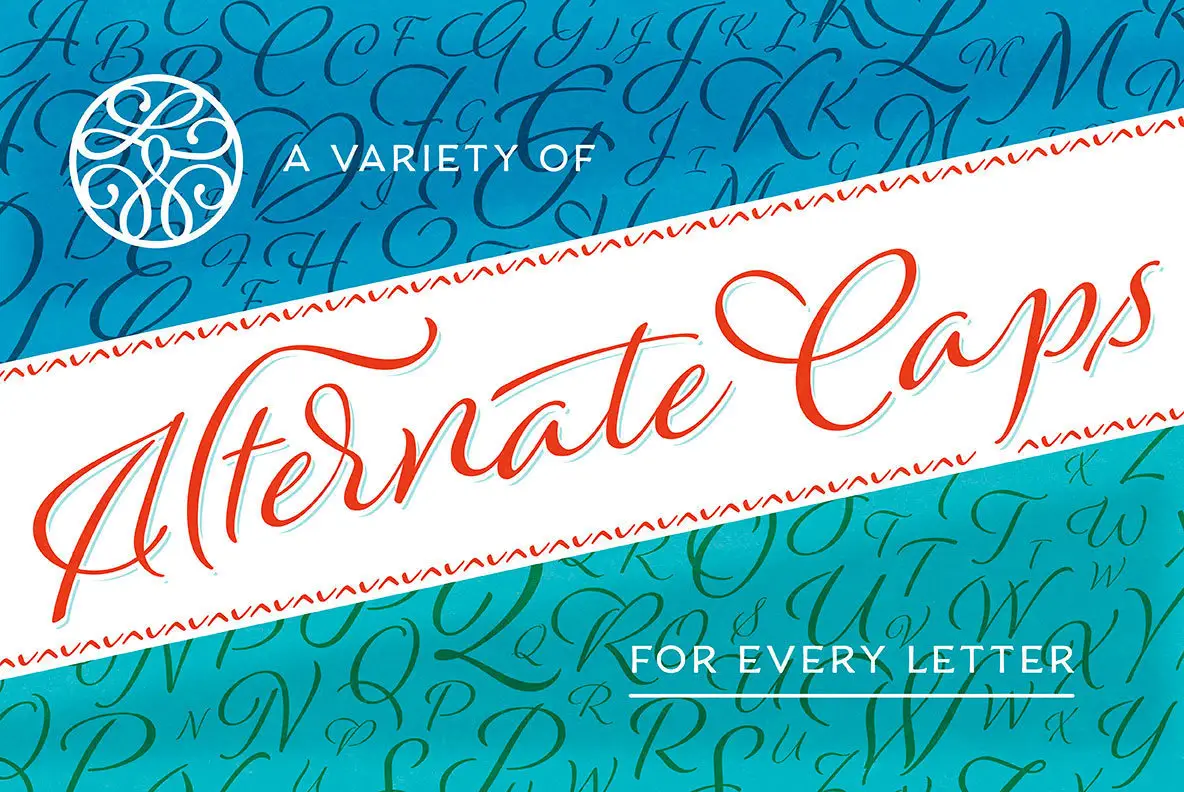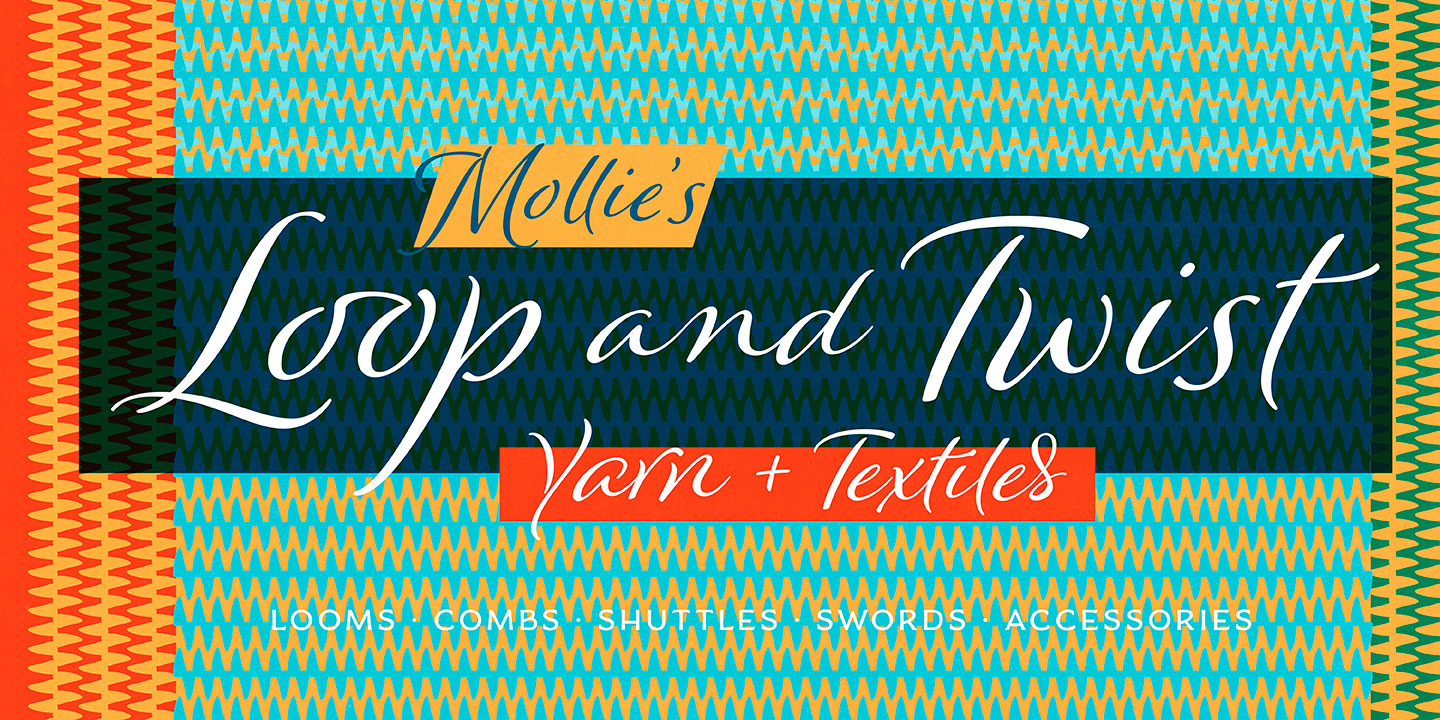
Winsome Font Free Download . The winsome font has been downloaded 753 times. A script typeface with 1 style, available from adobe fonts for.
Winsome Font Free Download - Web free download of winsome font. Web explore winsome designed by laura worthington at adobe fonts. Moreover, you can embed it to your website with @font. Web 4,828 downloads (5 yesterday) free for personal use. Web winsome font download is available free from fontget.
Winsome Font Free Download - The winsome font has been downloaded 753 times. Web 4,828 downloads (5 yesterday) free for personal use. Click now to create a custom image with your. Web winsome font download is available free from fontget. Web explore winsome designed by laura worthington at adobe fonts.
Winsome Font Free Download - Click now to create a custom image with your. The winsome font has been downloaded 753 times. Moreover, you can embed it to your website with @font. Web download and install the winsome font by scratchones. A script typeface with 1 style, available from adobe fonts for.
Winsome Font Free Download - Web winsome autumn à by md shohail bhuian. Web explore winsome designed by laura worthington at adobe fonts. Web 4,828 downloads (5 yesterday) free for personal use. The winsome font has been downloaded 753 times. Click now to create a custom image with your.
Winsome Font Free Download - Web free download of winsome font. Web download and install the winsome font by scratchones. A script typeface with 1 style, available from adobe fonts for. Moreover, you can embed it to your website with @font. Web explore winsome designed by laura worthington at adobe fonts.
Winsome Font Free Download - A script typeface with 1 style, available from adobe fonts for. Web winsome font download is available free from fontget. Web free download of winsome font. Click now to create a custom image with your. Moreover, you can embed it to your website with @font.
Winsome Font Free Download - The winsome font has been downloaded 753 times. Web free download of winsome font. A script typeface with 1 style, available from adobe fonts for. Web explore winsome designed by laura worthington at adobe fonts. Web 4,828 downloads (5 yesterday) free for personal use.
Winsome Font Free Download - Web explore winsome designed by laura worthington at adobe fonts. Winsome is a free font for personal use created by andikastudio. Moreover, you can embed it to your website with @font. Web download and install the winsome font by scratchones. A script typeface with 1 style, available from adobe fonts for.
Winsome Font Free Download - A script typeface with 1 style, available from adobe fonts for. Web download and install the winsome font by scratchones. The winsome font has been downloaded 753 times. Moreover, you can embed it to your website with @font. Web explore winsome designed by laura worthington at adobe fonts.
Winsome Font Free Download - The winsome font has been downloaded 753 times. Web free download of winsome font. Click now to create a custom image with your. A script typeface with 1 style, available from adobe fonts for. Web winsome autumn à by md shohail bhuian.
Winsome Font Free Download - Web download and install the winsome font by scratchones. A script typeface with 1 style, available from adobe fonts for. Winsome is a free font for personal use created by andikastudio. Web winsome font download is available free from fontget. Web explore winsome designed by laura worthington at adobe fonts.
Winsome Font Free Download - Click now to create a custom image with your. The winsome font has been downloaded 753 times. Winsome is a free font for personal use created by andikastudio. Web winsome font download is available free from fontget. Web explore winsome designed by laura worthington at adobe fonts.
Winsome Font Free Download - Web winsome autumn à by md shohail bhuian. Web download and install the winsome font by scratchones. Web winsome font download is available free from fontget. Winsome is a free font for personal use created by andikastudio. Moreover, you can embed it to your website with @font.
Winsome Font Free Download - The winsome font has been downloaded 753 times. A script typeface with 1 style, available from adobe fonts for. Web winsome autumn à by md shohail bhuian. Click now to create a custom image with your. Web 4,828 downloads (5 yesterday) free for personal use.
Winsome Font Free Download - Web winsome autumn à by md shohail bhuian. Web free download of winsome font. Click now to create a custom image with your. Web winsome font download is available free from fontget. The winsome font has been downloaded 753 times.
Winsome Font Free Download - Web download and install the winsome font by scratchones. Web winsome font download is available free from fontget. Click now to create a custom image with your. Web explore winsome designed by laura worthington at adobe fonts. Winsome is a free font for personal use created by andikastudio.